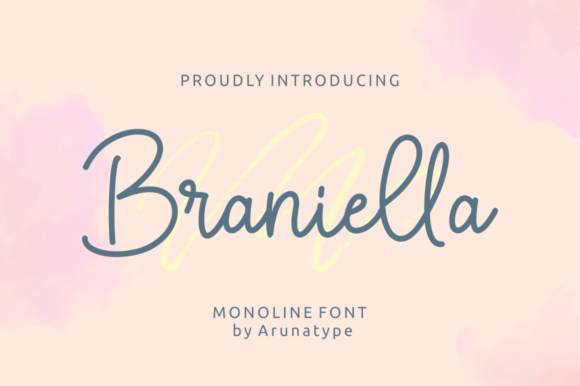
The Sweet Spot: Discovering Braniella Font
I still remember the design project that led me to Braniella Font. I was working on a children’s book, aiming for a playful yet elegant feel. As I scrolled through font options, Braniella caught my eye with its delicate, flowing script. It was love at first sight! In this article, I’ll share my experience with Braniella, its features, and how to make the most of this beautiful font.
An Honest Review of Braniella Font
- ✨ Sweet and Playful Personality: Braniella’s dainty, handwritten style is perfect for projects that need a touch of whimsy.
- ✅ Versatility: This font shines in various design projects, from logos and titles to posters, magazines, books, and comics.
- 💫 Elegant Flow: Braniella’s flowing script gives text a beautiful, connected feel that’s hard to find in digital fonts.
While Braniella is a stunning font, it’s not without its quirks. For instance:
- ⚠️ Legibility at Small Sizes: Like many script fonts, Braniella can be tricky to read at very small sizes. It’s best used at larger sizes where its beauty can shine.
- 🤔 Limited Use in Body Text: Due to its elegant, connected nature, Braniella might not be the best choice for long body text. It’s perfect for headings, titles, and short paragraphs, though!
The Story Behind Braniella
Braniella was designed with love by a passionate typographer who aimed to create a font that captures the sweetness and playfulness of handwritten scripts. Inspired by elegant calligraphy and the beauty of flowing connections, Braniella brings a touch of personal warmth to any design.
A: While Braniella is stunning for titles and headings, it’s not ideal for long body text due to its script nature and potential legibility issues at smaller sizes.
A: Yes, Braniella supports OpenType features, including stylistic alternates and glyphs. You can access these features in compatible design software like Adobe Photoshop, Illustrator, or newer versions of Microsoft Word.